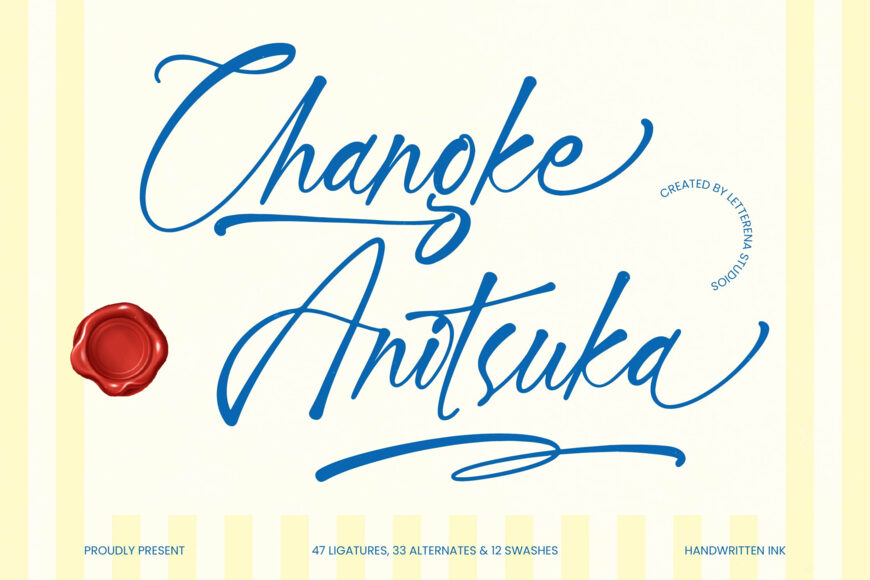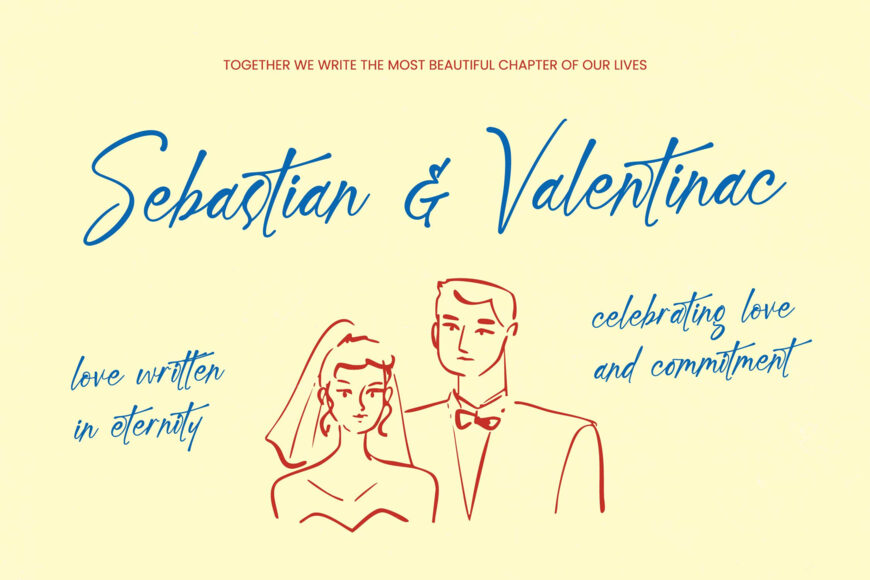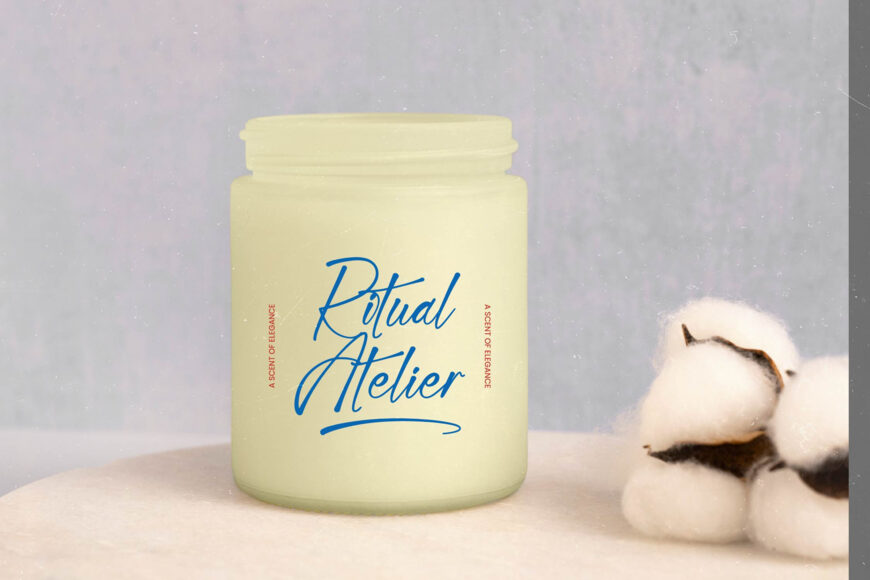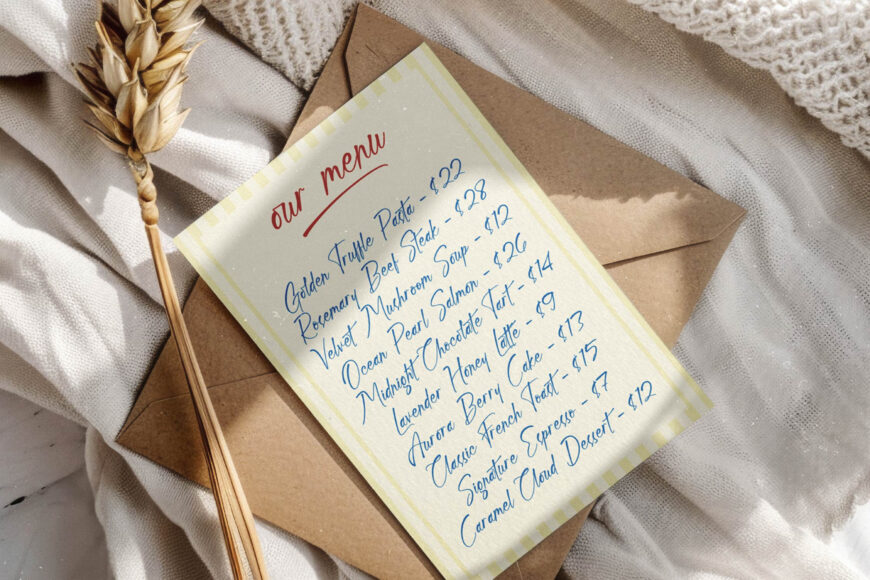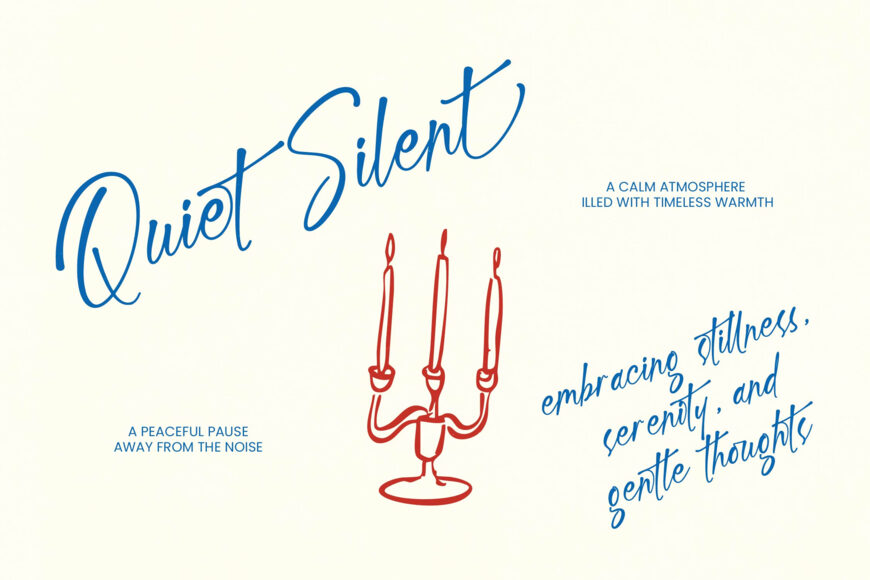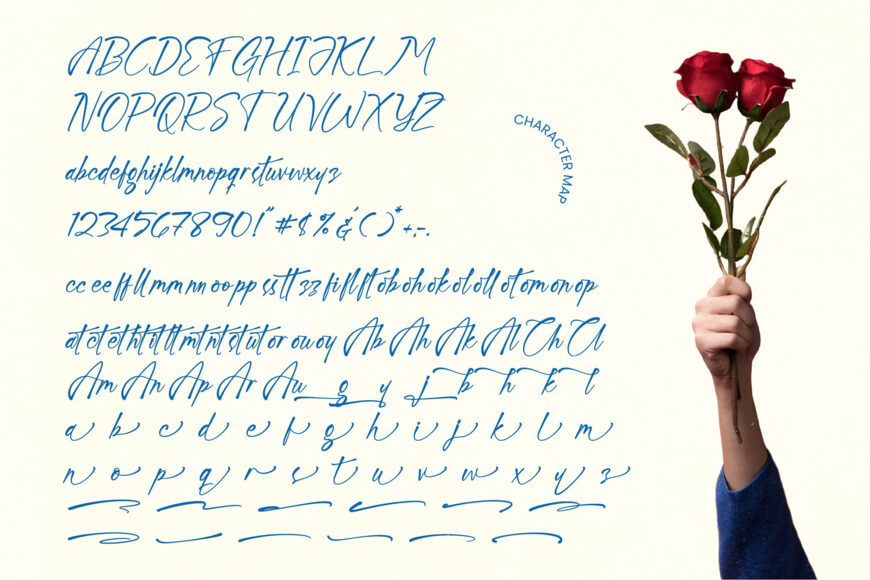
Bring your creative work to life with Changke Anitsuka, a refined script font that combines organic ink textures with fluid, handcrafted strokes. Its expressive ligatures, alternates, and swashes add personality and customization, helping every design feel distinctive.
Ideal for luxury identities, premium packaging, editorial layouts, wedding invitations, boutique logos, and cosmetic branding, this versatile typeface brings elegance, exclusivity, and artistic character to every application. Create polished, memorable designs that feel personal, sophisticated, and professionally crafted.